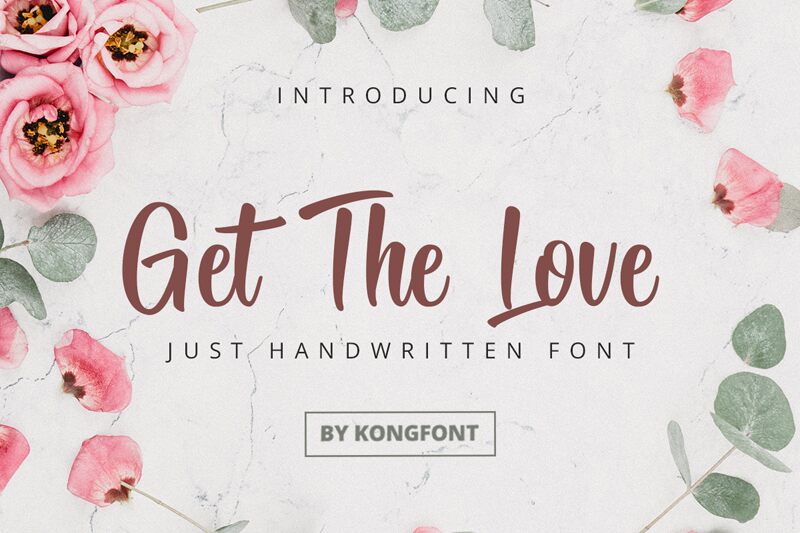
Get The Love
Get The Love font by Kong Font is a brush typeface that is both expressive and elegant. It showcases a captivating modern script style that captures attention at first glance. Each glyph seems to have been casually drawn by hand, yet they remain legible and perfectly suitable for various designs.
This free handwritten font is ideal for all your greeting cards, wedding invitations, logos, quotes, branding designs, social media posts, magazines and book cover titles. Enjoy it in advertising projects as well as in your film covers!